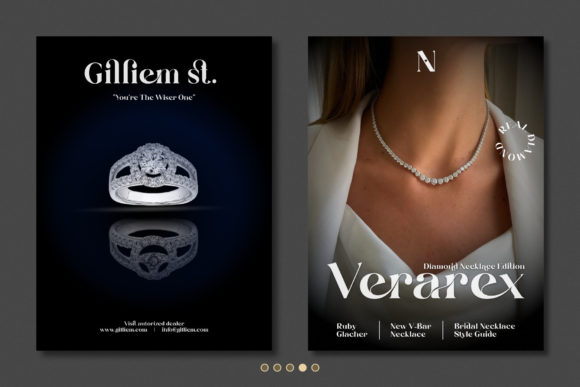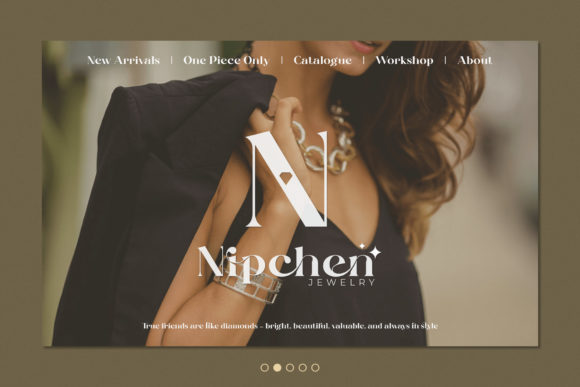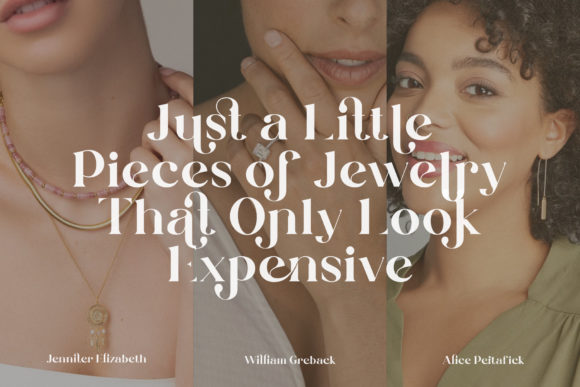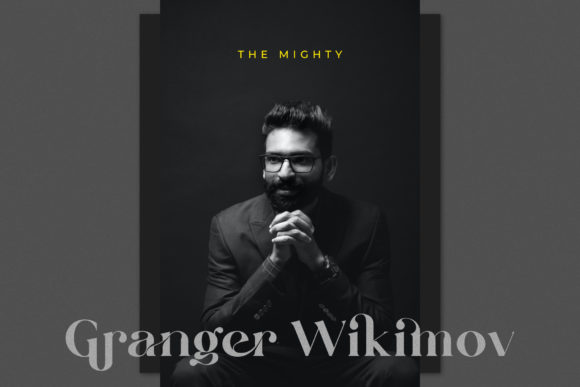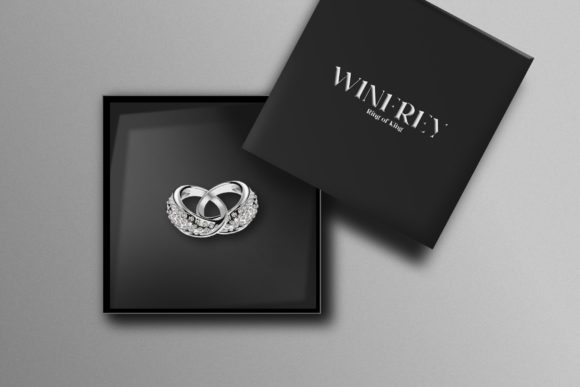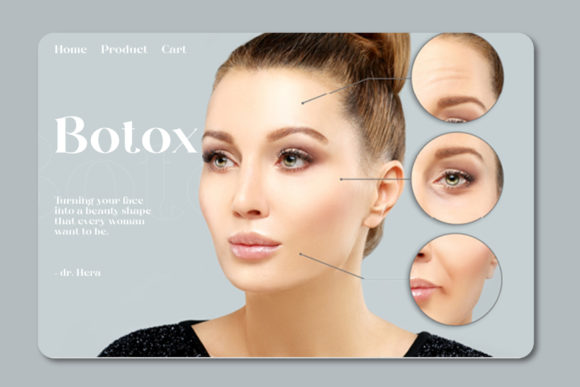
Introduction to Milkipack Stylish Font
Milkipack Stylish is a superb serif font that looks modern and exquisite.
It is perfect for designing templates, brochures, videos, advertising branding, logos, and more .
Key Features of Milkipack Stylish Font
Why Choose Milkipack Stylish Font?
Milkipack Stylish Font offers exceptional quality and versatility, making it a valuable addition to your design toolkit. Whether you’re creating for personal projects or commercial use, Milkipack Stylish Font delivers professional results.